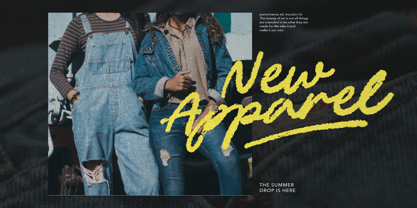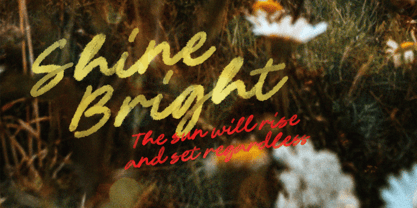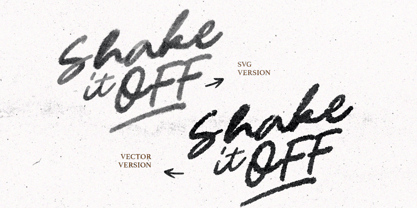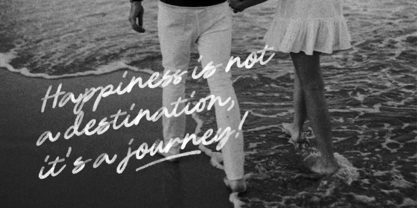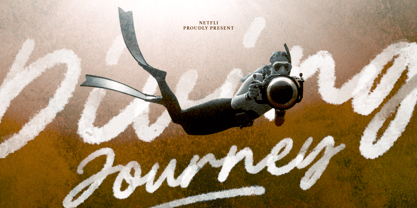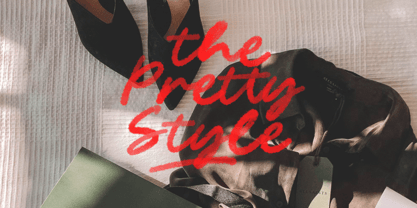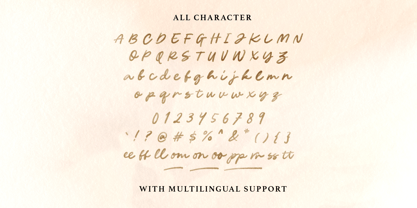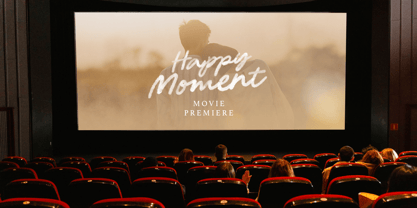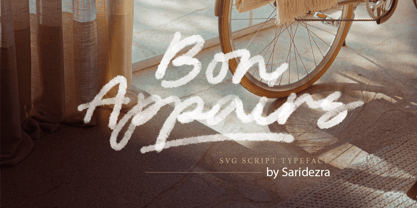
Bon Appairs
by Sarid Ezra
The Bon Appairs Font Family was designed by Sarid Ezra and published by Sarid Ezra. Bon Appairs contains 2 styles.
Bon Appairs is a charming and expressive script font that features a beautiful transparent watercolor texture, giving your text a soft, artistic, and handcrafted appearance. Its smooth, natural ligatures help create an authentic handwritten look, while the stylish underline option adds a touch of drama and emphasis to your compositions. In addition to its artistic flair, Bon Appairs includes numbers, symbols, and a full range of punctuation, ensuring it meets all your design needs. It also supports multiple languages, making it perfect for projects with a global audience. Whether for branding, invitations, posters, or social media graphics, this font brings a warm and creative touch to any design.